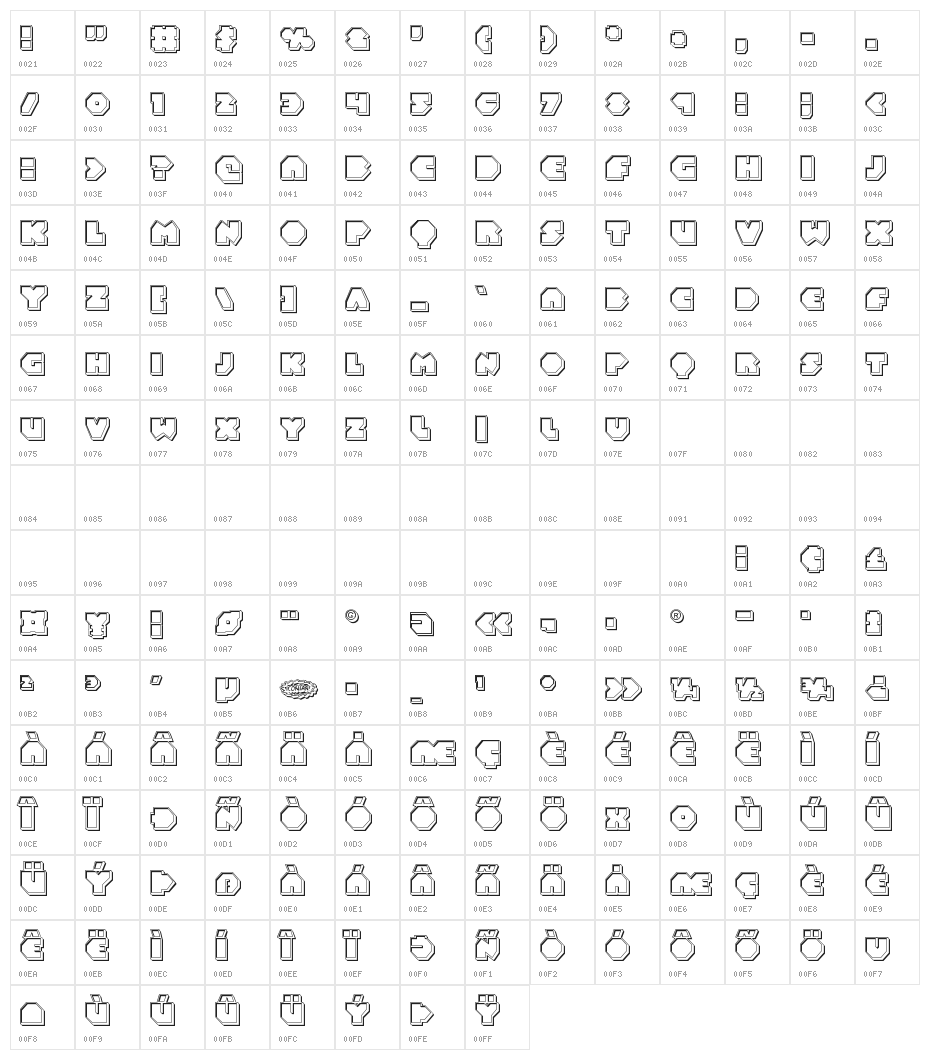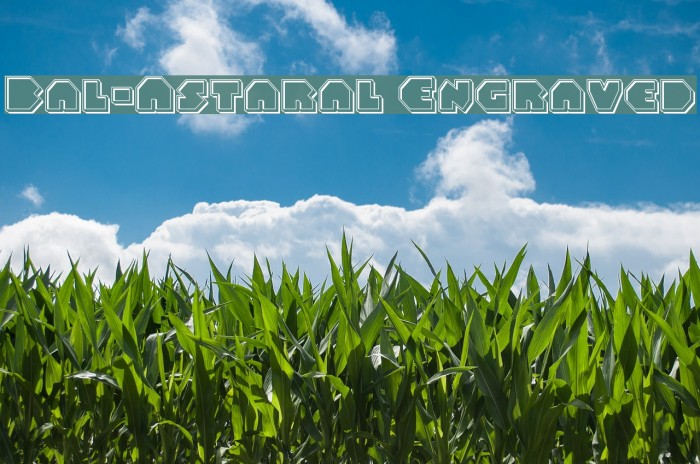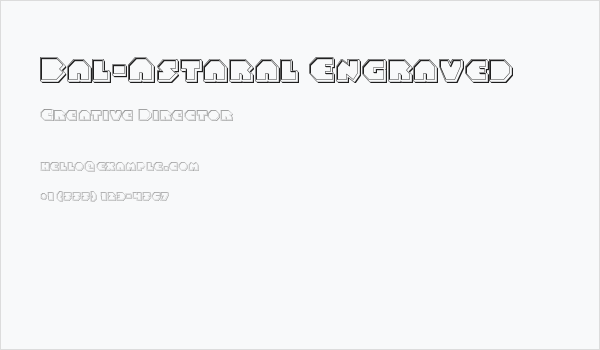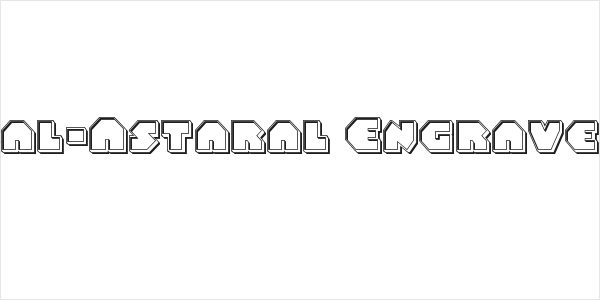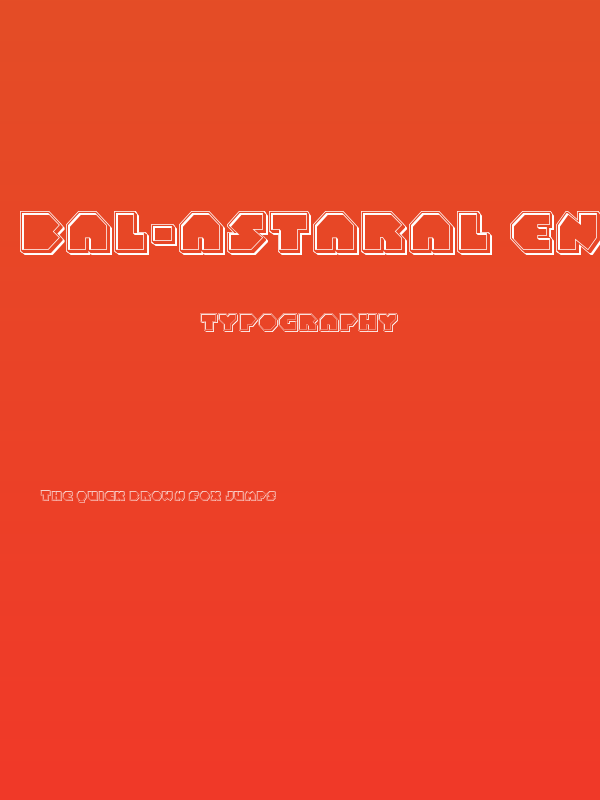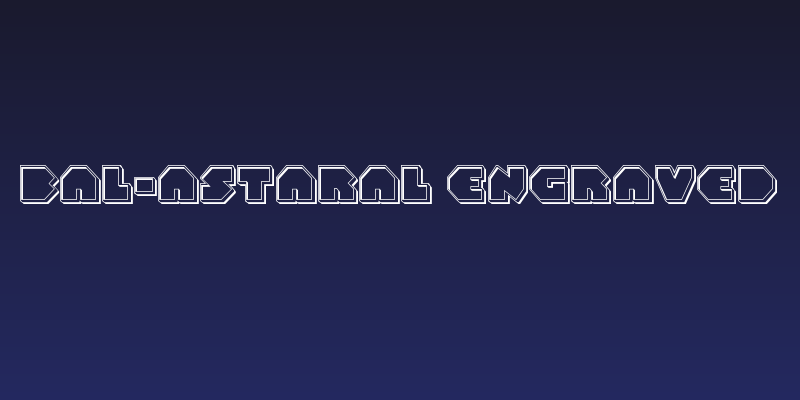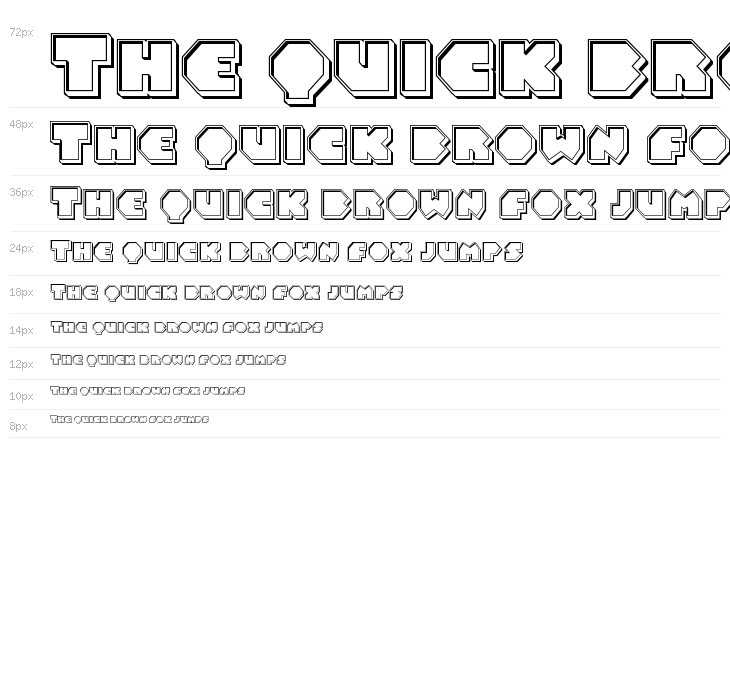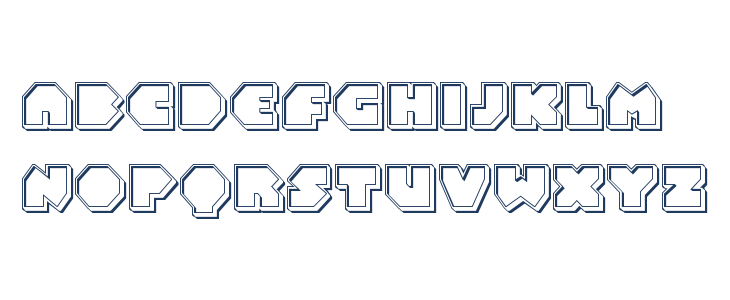
Bal-Astaral Engraved Font
Bal-Astaral Engraved Description
This font features a bold, geometric design with a three-dimensional engraved effect. Each character is outlined with a thick border, creating a striking visual impact. The angular shapes and sharp edges give it a futuristic and industrial feel. The uppercase and lowercase letters maintain a consistent style, with a strong emphasis on symmetry and precision. Numbers and special characters are designed to match the bold and structured aesthetic, making them easily recognizable and visually appealing. The font's unique style makes it suitable for projects that require a modern and edgy look.
Proposed ProjectsIdeal for use in branding, posters, video game graphics, and futuristic-themed designs.